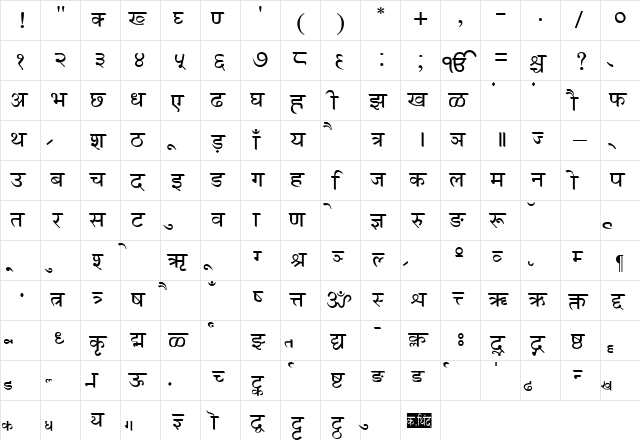
GurbaniHindi Regular
Design Context for GurbaniHindi Typeface
GurbaniHindi offers clean, dependable letterforms without strong stylistic allegiance, making it a practical choice for designers who need flexibility.
Pro Tip: Use GurbaniHindi in both headline and body roles to test its range before committing to a single application.